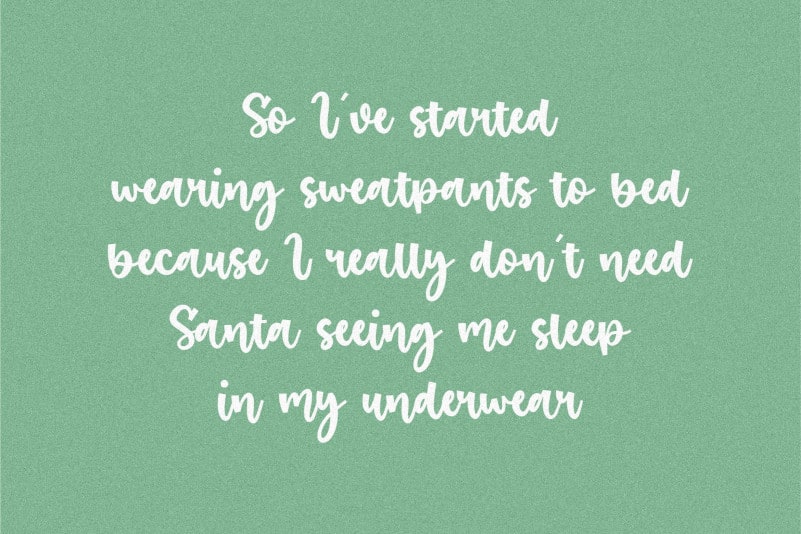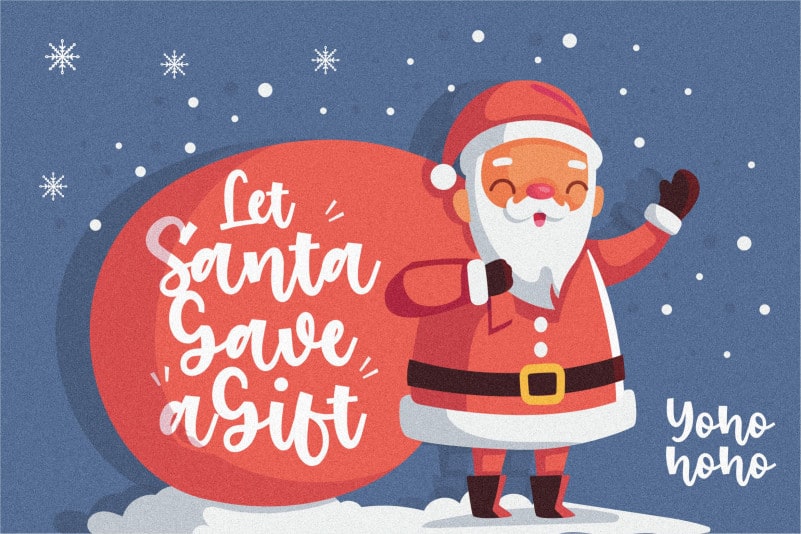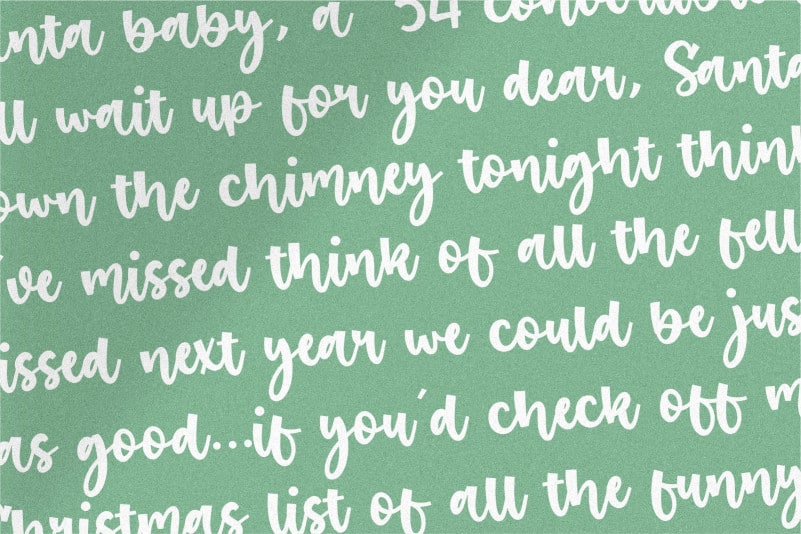
Santa Robin Modern Handbrushed Font
Proudly Present, Santa Robin Modern Handbrushed Font.
Santa Robin is a Modern Handbrushed Font.
It’s is perfect for product packaging, branding project, megazine, social media, wedding, or just used to express words above the background.